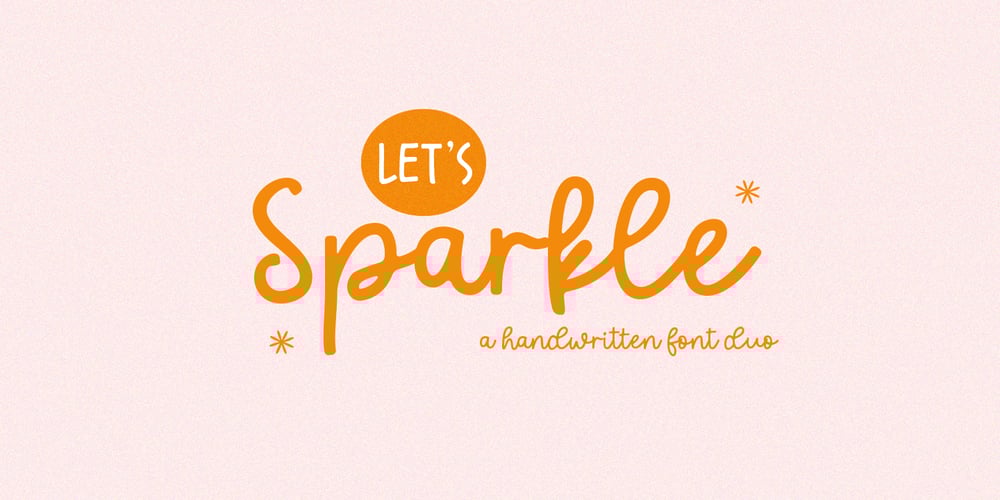
Lets Sparkle Font Family was designed by Muhammad Fajar and published by Lucky Type. Lets Sparkle contains 2 styles and family package options. Let’s Sparkle is a brand-new handwritten font that will be perfect for books, wedding invitations, greeting cards, logos, posters, or anything else that needs a fun and happy look!